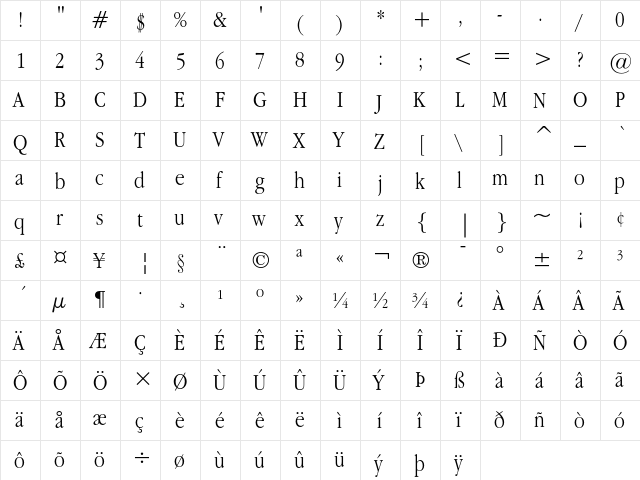
Apple Garamond Light
Design Context for Apple Garamond Typeface
Apple Garamond offers clean, dependable letterforms without strong stylistic allegiance, making it a practical choice for designers who need flexibility. The delicate stroke weight brings airiness and refinement to layouts.